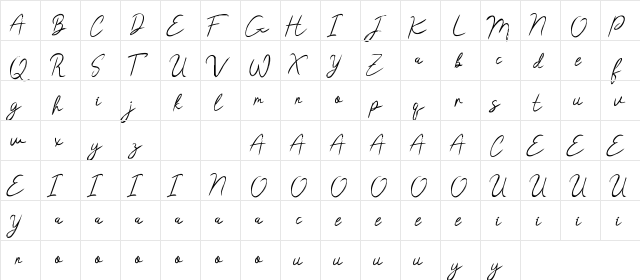
Hasita Hillary Demo Brush Regular
| Foundry | Edric Studio |
| Designer | Fahri Firdaus |
Design Context for Hasita Hillary Demo Brush Typeface
Hasita Hillary Demo Brush brings a calligraphic fluidity to the page — its connecting strokes and expressive curves give it an unmistakably human quality.